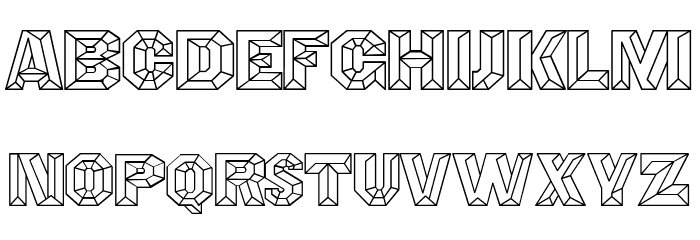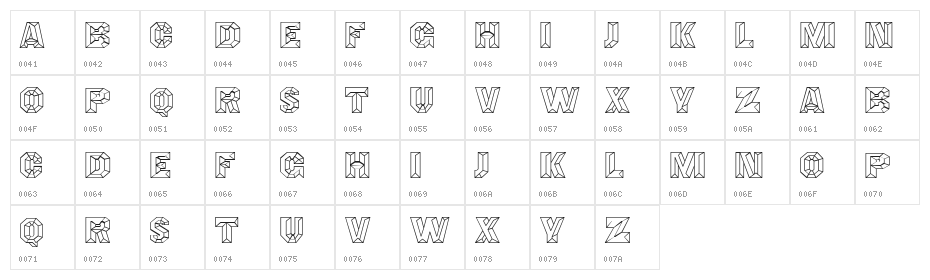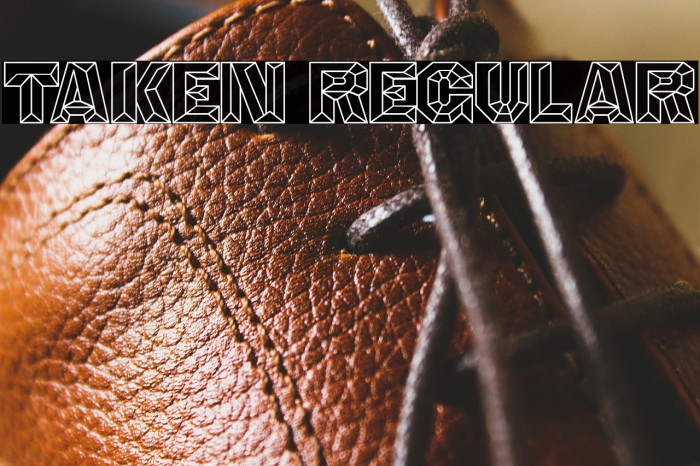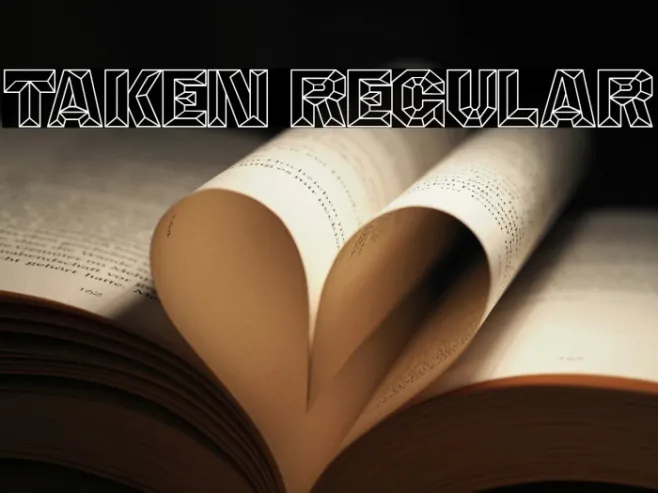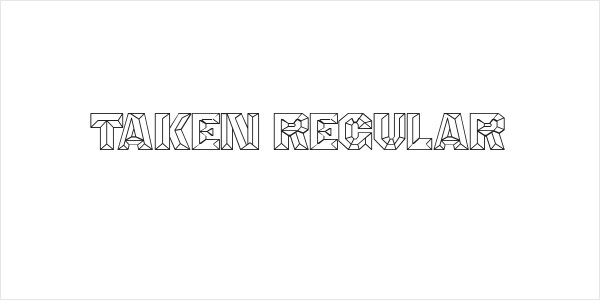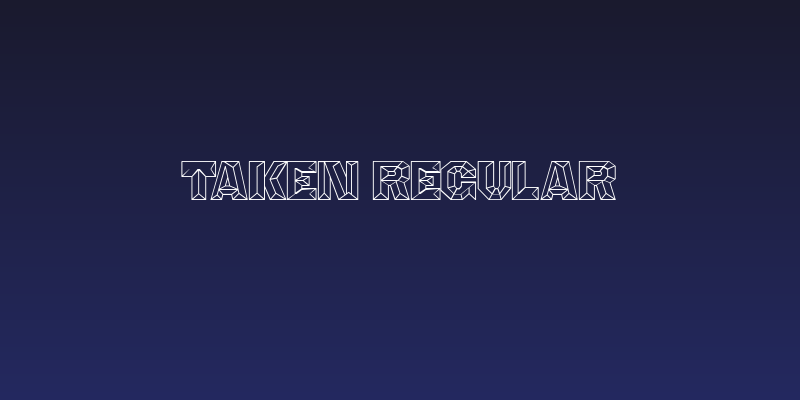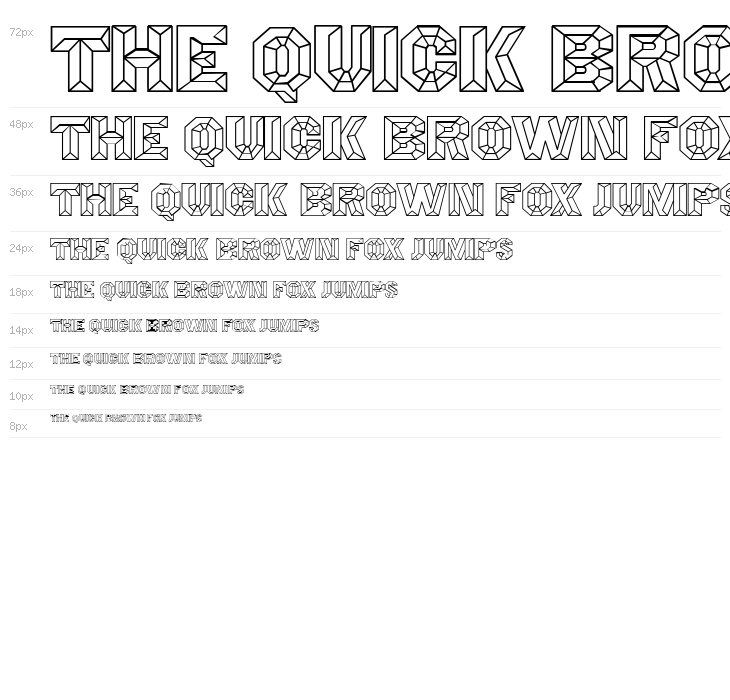
Taken Regular Font
Taken Regular Description
This font features a unique geometric design with a three-dimensional effect, created by intricate line work that forms a faceted appearance. Each character is constructed with angular shapes, giving it a modern and edgy look. The letters are uppercase, with consistent line thickness throughout, contributing to a cohesive and structured feel. The style is bold and eye-catching, making it suitable for creative and artistic projects. The font's distinctiveness lies in its ability to convey a sense of depth and complexity while maintaining readability.
| Proposed Projects | Ideal for use in posters, branding, album covers, and any project requiring a modern, artistic touch. |